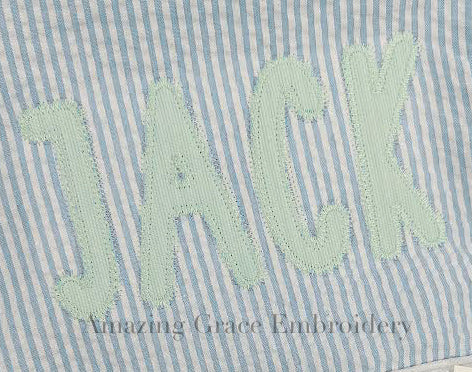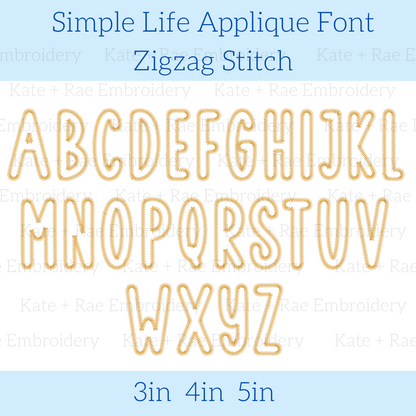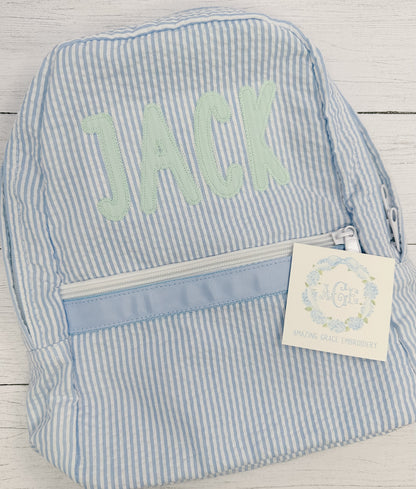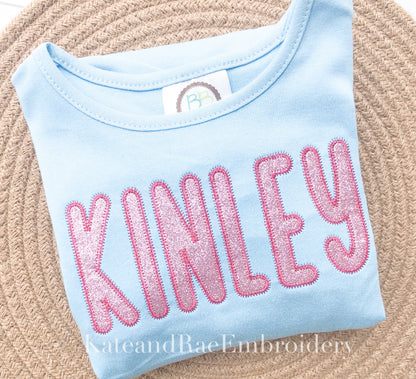
Simple Life Applique Font - Zigzag Stitch
Meet Simple Life, a clean and classic zigzag stitch applique font! Personalize names, monograms, sweatshirts, and kids' outfits.